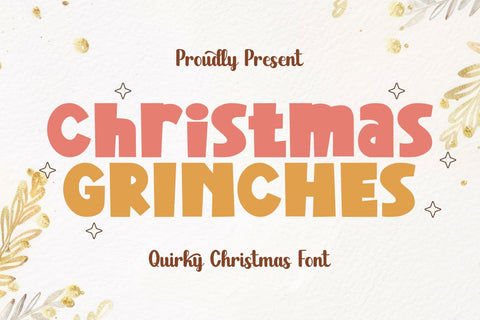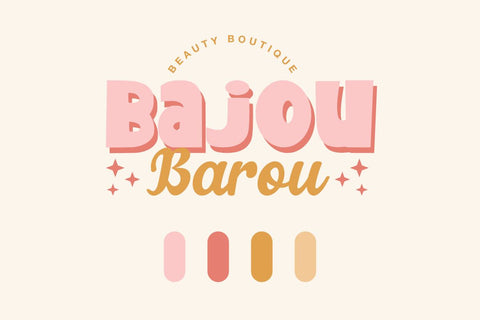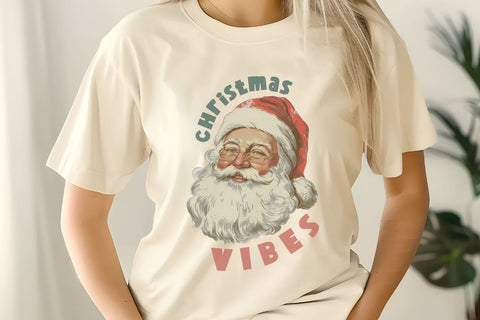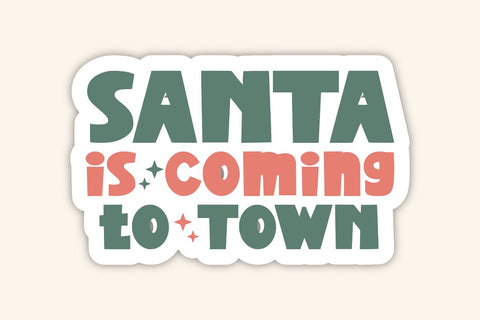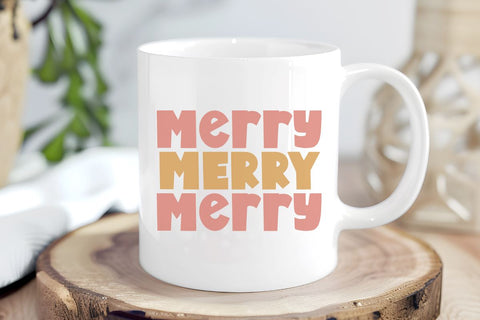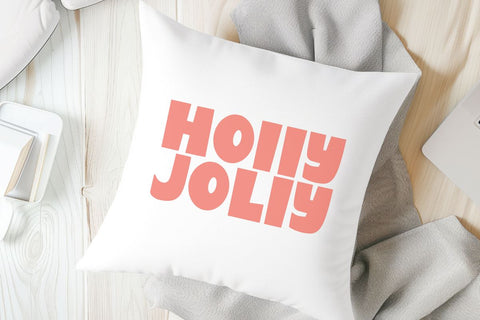
Christmas Grinches - Quirky Christmas Font
Christmas Grinches is a fun quirky Christmas display font. A font inspired by typographic sticker designs about Christmas is very suitable for Christmas celebration needs. This font is also perfect for t-shirts, apparel, wall art, key chains, hoodies, tote bags, cards, invitations, Cricut, silhouettes, sublimation, embroidery, planners, journals and many other ideas. Apart from that, this font is also suitable for social media, branding and marketing purposes